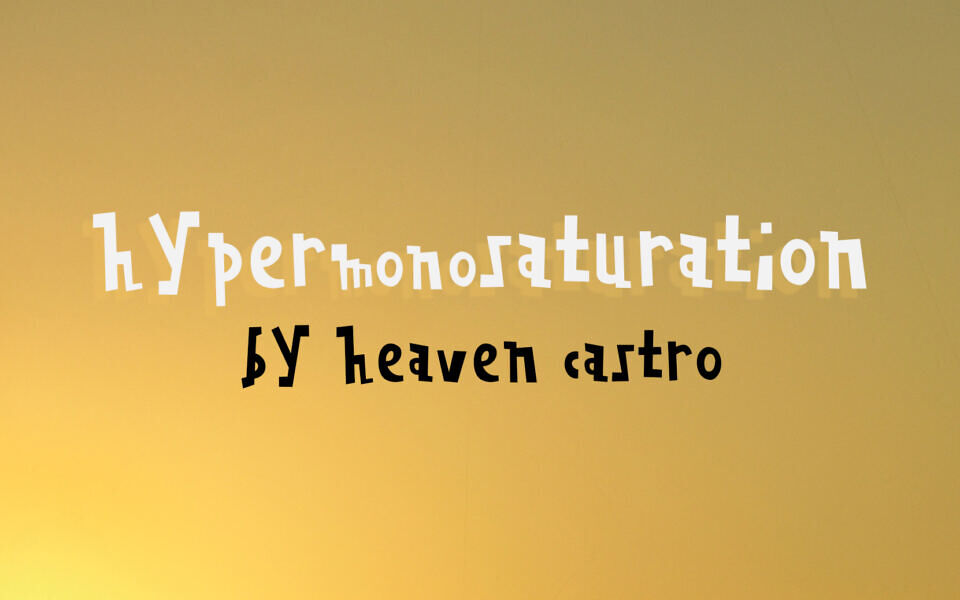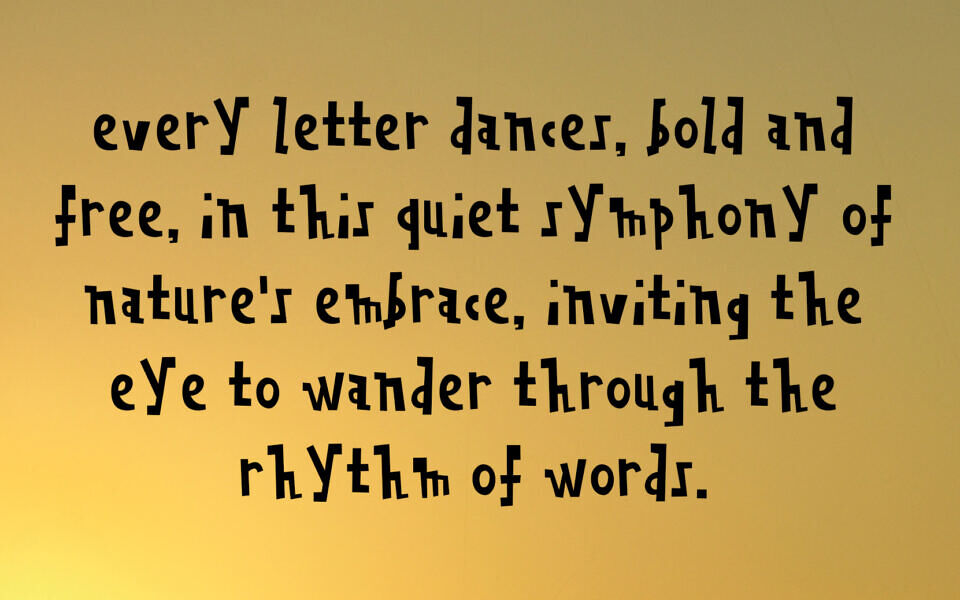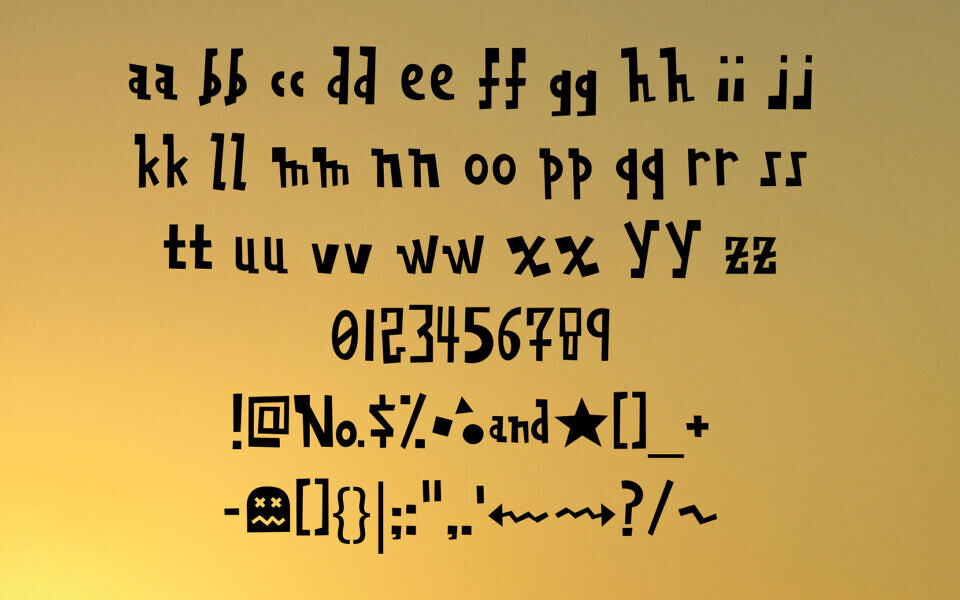
Hypermonosaturation is a bold and quirky cartoon display typthateface radiates playful energy and rhythmic movement. Made with polygonal lines and elliptical curves, its irregular shapes, uneven strokes, and varied letter heights create a sense of spontaneity, as if each character is dancing on the page.
The font combines strong, geometric angles with organic curves, giving it both structure and freedom. Perfect for creative projects, posters, or artistic statements, Hypermonosaturation captures attention with its unique balance of boldness and whimsy, making words feel alive and expressive in a vibrant, unconventional style.